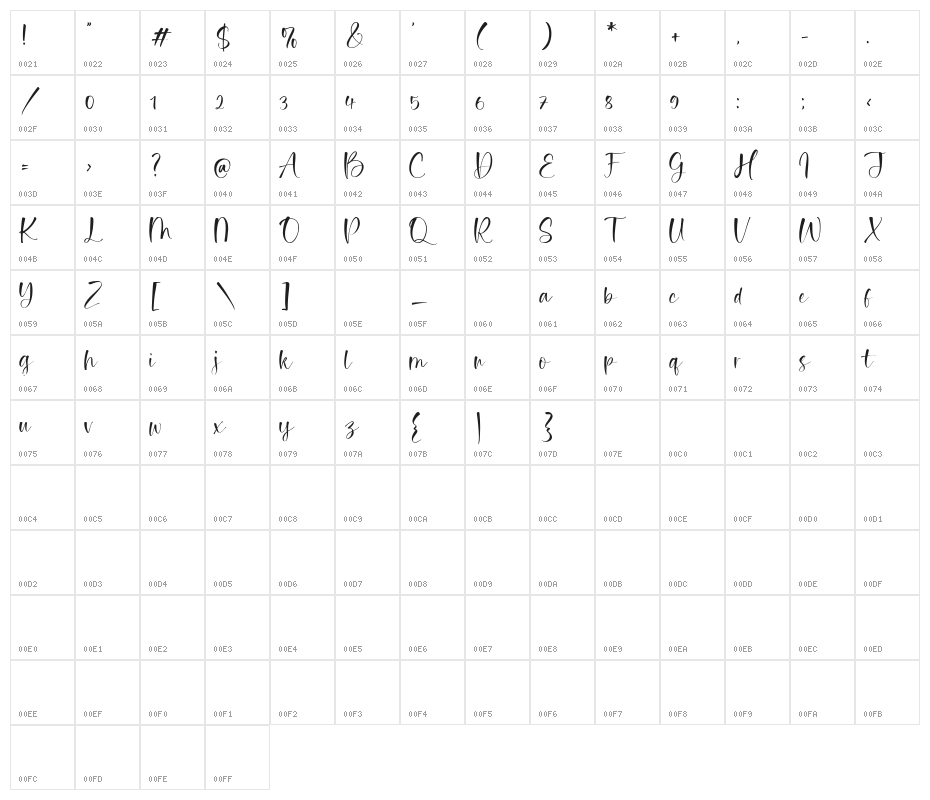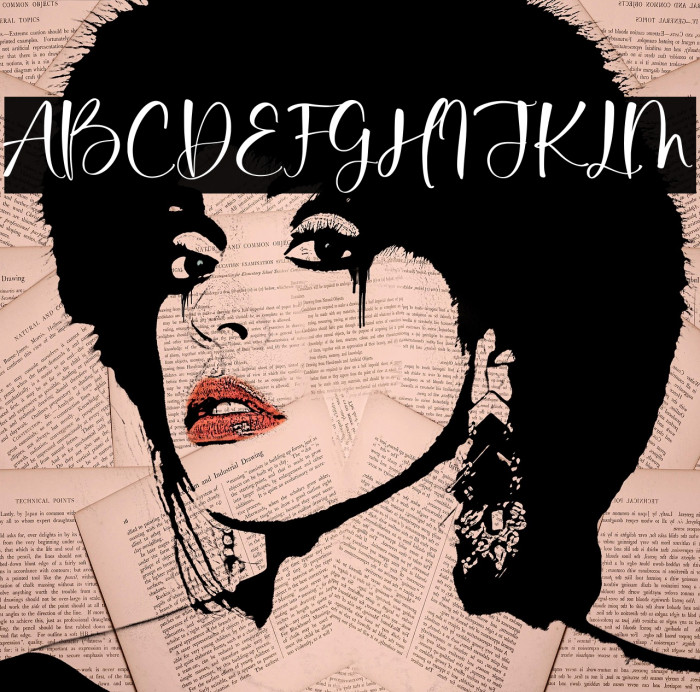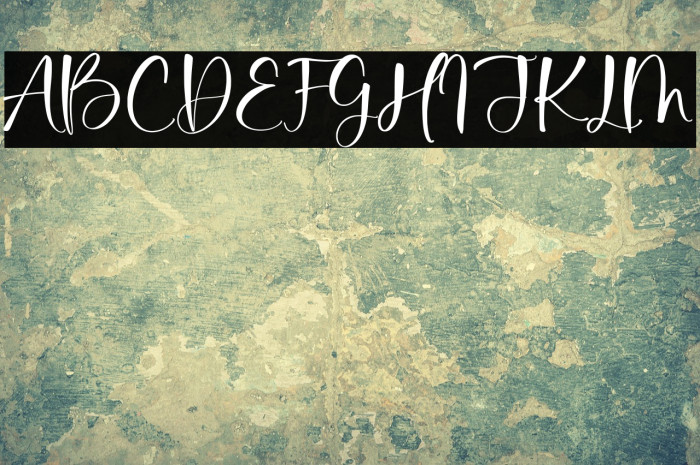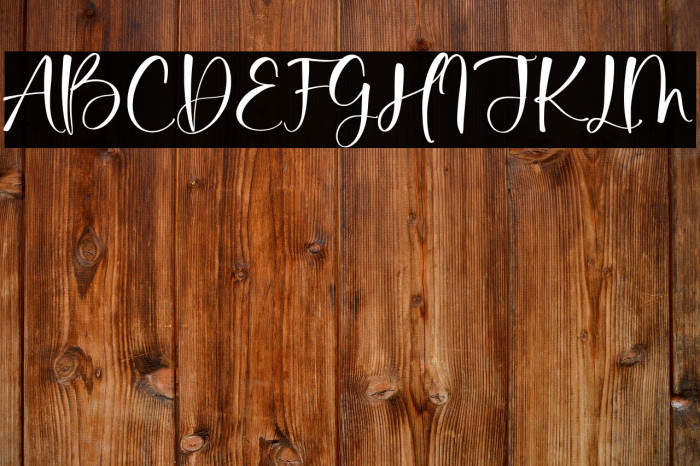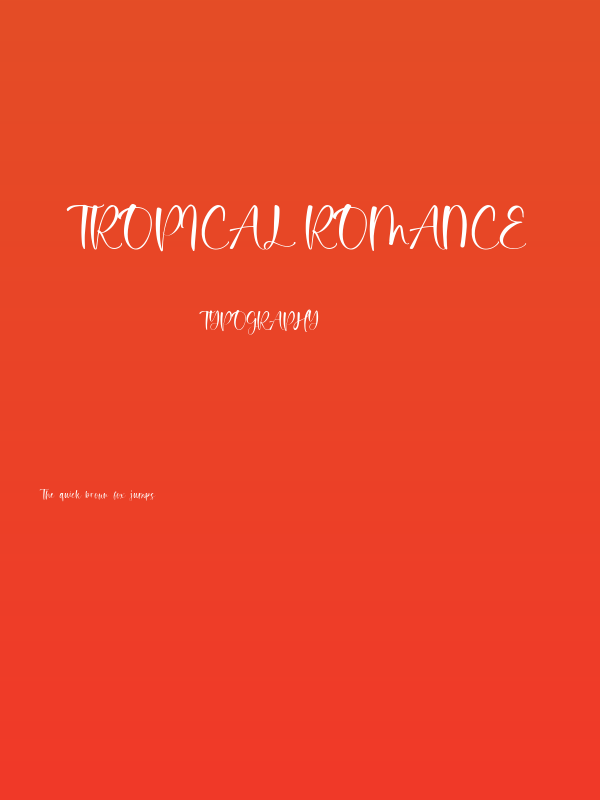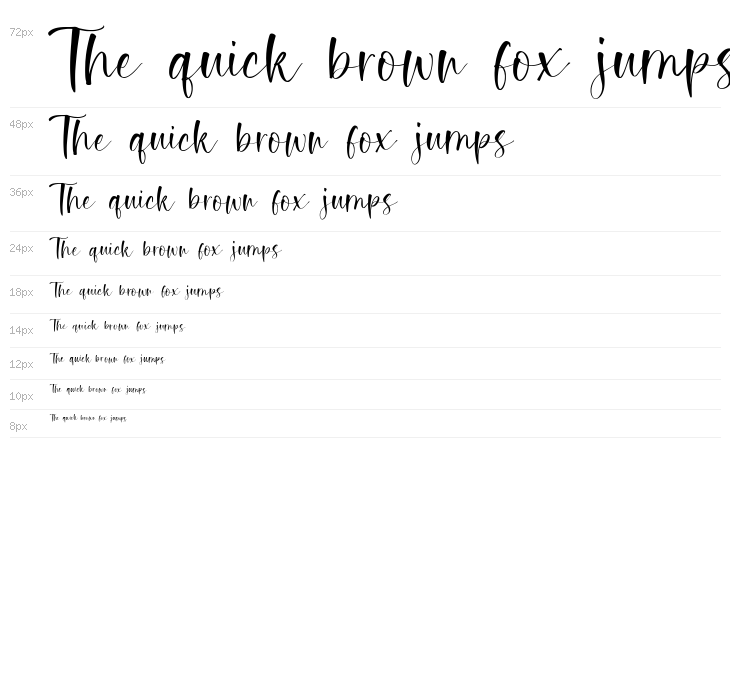
Tropical Romance Font
Tropical Romance Description
This elegant and flowing script font exudes a sense of romance and sophistication. The characters are beautifully crafted with smooth curves and delicate strokes, giving it a handwritten feel. The uppercase letters are bold and prominent, while the lowercase letters maintain a graceful and fluid appearance. The numerals and special characters are consistent with the overall style, adding versatility to its use. The font's design is perfect for adding a touch of elegance to any project, making it ideal for invitations, greeting cards, and branding materials.
| Overall Style | Romantic, Elegant |
| Use Case | Invitations, Greeting cards, Branding |
| Proposed Projects | Ideal for wedding invitations, greeting cards, branding, and elegant packaging designs. |